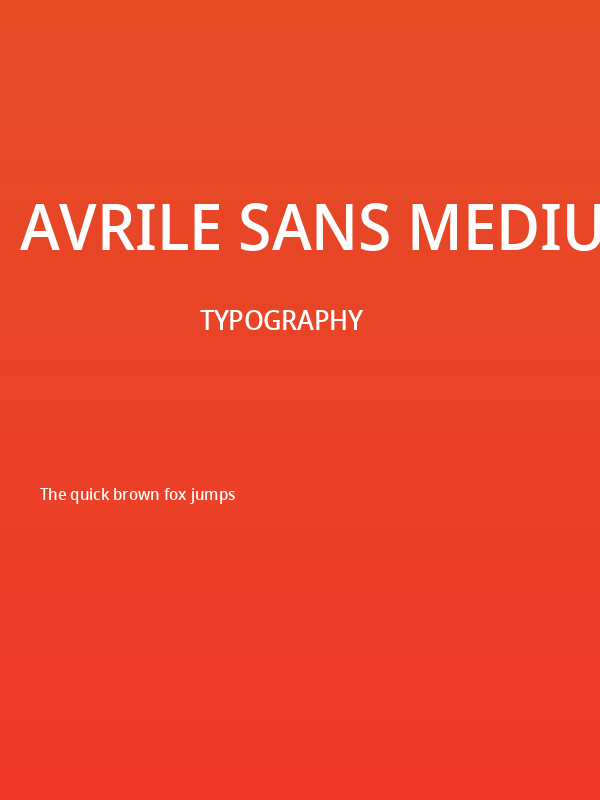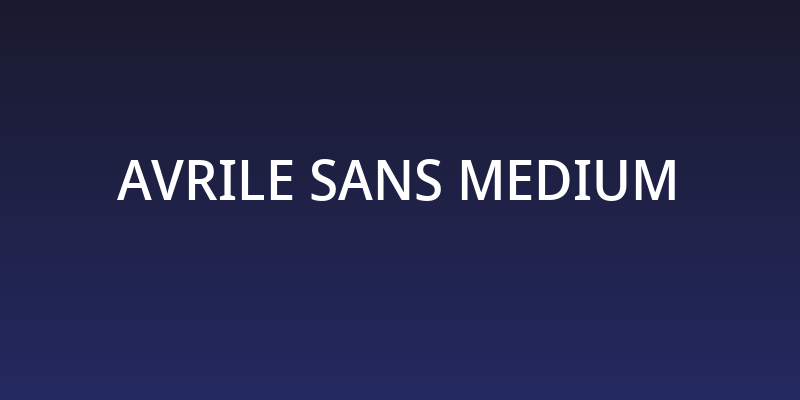
Avrile Sans Medium Font
Avrile Sans Medium Description
This typeface features a clean and modern sans-serif design, characterized by its straightforward and geometric letterforms. The uppercase letters are bold and assertive, while the lowercase letters maintain a balanced and harmonious appearance. The numerals are clear and easily distinguishable, making them suitable for various applications. Special characters are well-integrated, ensuring versatility in design projects. The overall aesthetic is minimalistic, with a focus on readability and functionality, making it ideal for both digital and print media.